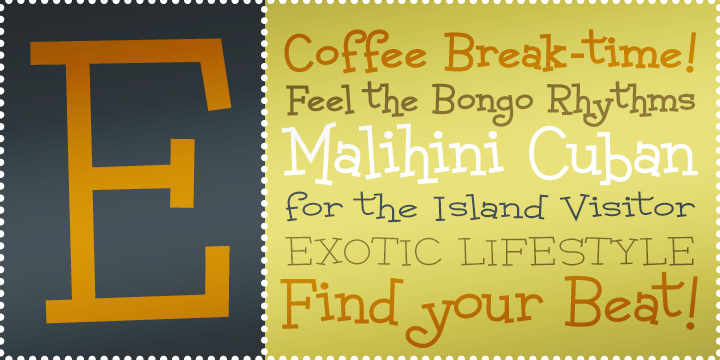
Malihini Cuban BTN
Designed by: Stuart Sandler
Designed when: 2003
Design owned by: Breaking the Norm
Malihini Cuban BTN
Malihini Cuban is a playful, exotic typeface for any island visitor.
Malihini literally means foreign visitor, but there is nothing foreign about this fun family!
Unlike Malihini Tahitian, the Cuban version has a square look.